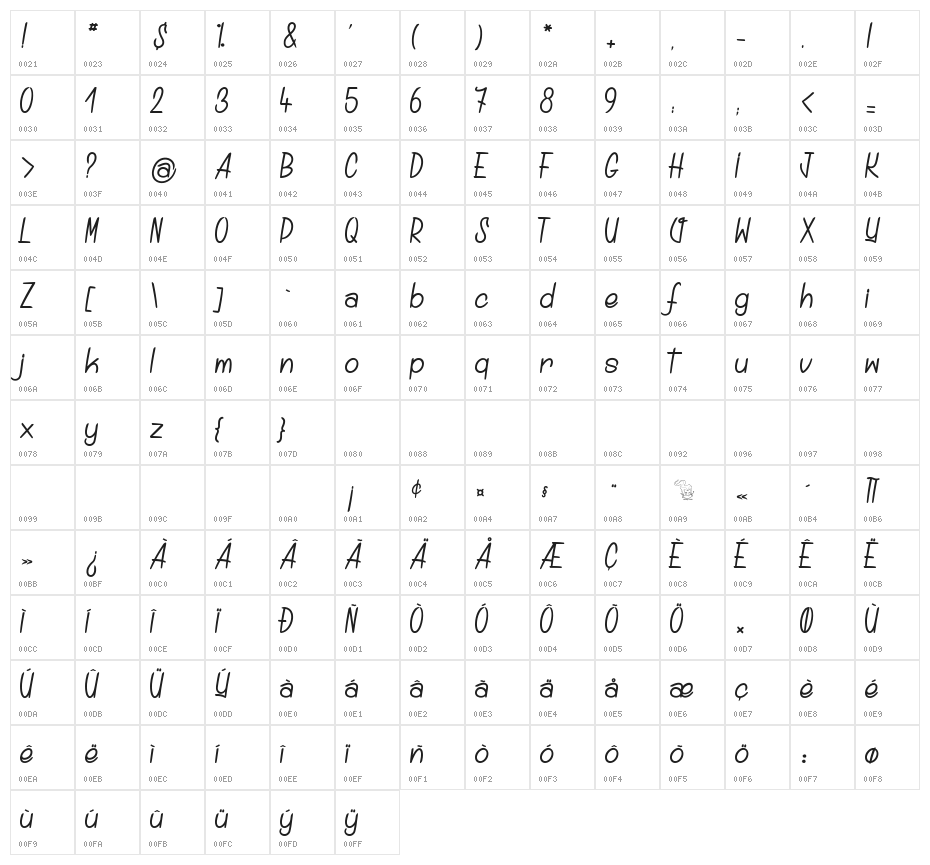
Distillated Font
Distillated Description
This font features a playful and casual handwritten style, characterized by its smooth, flowing lines and slightly irregular letterforms. The uppercase letters are tall and narrow, with a slight slant that adds to the informal feel. Lowercase letters maintain a consistent height, with rounded edges and a natural, organic appearance. The numerals are clear and legible, matching the overall style of the alphabet. Special characters are well-integrated, maintaining the same playful aesthetic. This font exudes a sense of approachability and friendliness, making it ideal for projects that require a personal touch.
| Overall Style | Casual |
| Use Case | Logos, Invitations, Social Media Graphics |
| Proposed Projects | Greeting cards, invitations, children's books, casual branding, and social media graphics. |